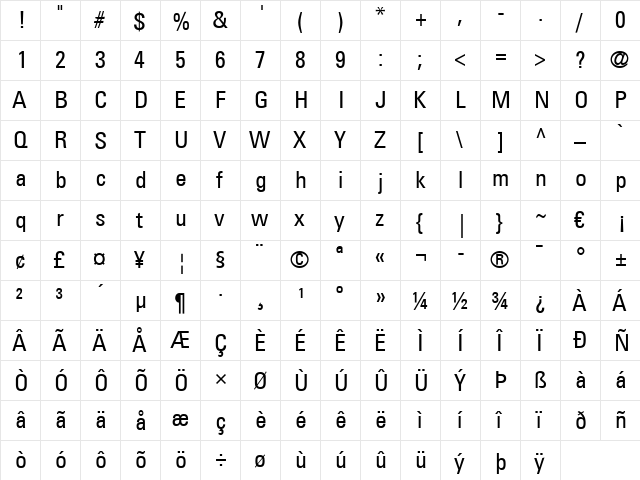
Univers LT 57 Condensed Regular Font Preview
Design Context for Univers LT 57 Condensed Typeface
Univers LT 57 Condensed takes a measured approach to typography — its balanced proportions and neutral character make it a reliable workhorse for both digital and print work. The delicate stroke weight brings airiness and refinement to layouts. The condensed width makes it efficient for tight spaces without sacrificing legibility.